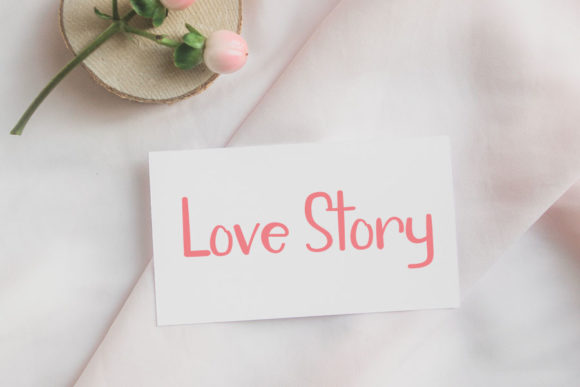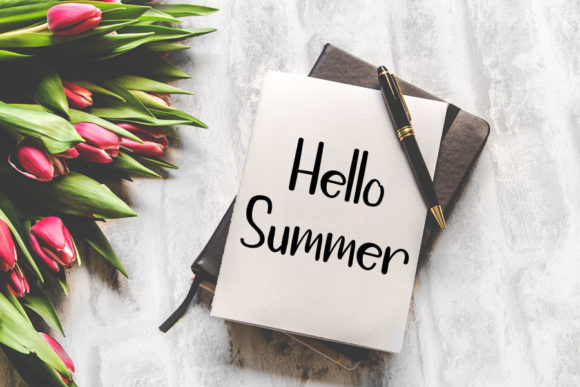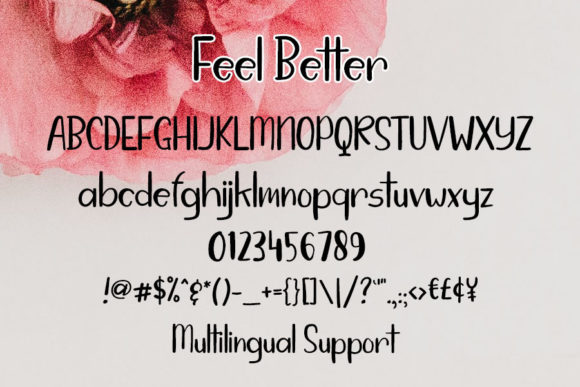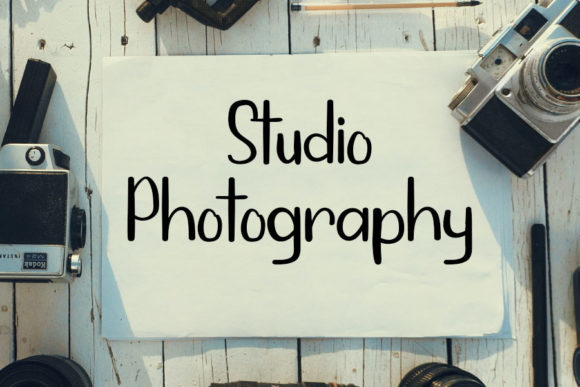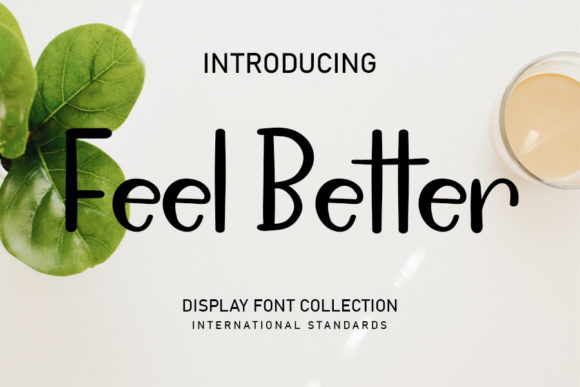
Introducing Feel Better Font: The Cute and Trendy Handwritten Font to Elevate Your Designs
Are you tired of using the same old fonts in your designs? Do you want to add a personal touch to your creations and make them stand out from the crowd? Look no further than Feel Better Font, a beautiful and trendy handwritten font that’s perfect for designers and crafters alike. In this article, we’ll dive into the world of Feel Better Font and explore its unique features, uses, and benefits.
What is Feel Better Font?
Feel Better Font is a cute and trendy handwritten font that’s designed to add a touch of personality to your designs. Its natural and unique style makes it incredibly fitting to a large pool of designs, from digital products to print materials. Whether you’re creating social media graphics, blog posts, or marketing materials, Feel Better Font is the perfect choice to make your designs shine.
Unique Features of Feel Better Font
So, what sets Feel Better Font apart from other fonts? Here are some of its unique features:
- Handwritten style: Feel Better Font has a beautiful, handwritten style that’s perfect for adding a personal touch to your designs.
- Natural and unique: The font’s natural and unique style makes it incredibly fitting to a wide range of designs.
- Trendy and modern: Feel Better Font is a trendy and modern font that’s perfect for designers who want to stay ahead of the curve.
- Highly versatile: The font is highly versatile and can be used in a variety of designs, from digital products to print materials.
Uses of Feel Better Font
So, what can you use Feel Better Font for? The possibilities are endless! Here are some ideas to get you started:
- Social media graphics: Use Feel Better Font to create eye-catching social media graphics that will make your followers stop scrolling.
- Blog posts: Add a personal touch to your blog posts with Feel Better Font and make them more engaging and readable.
- Marketing materials: Use Feel Better Font to create marketing materials that will help your brand stand out from the crowd.
- Digital products: Feel Better Font is perfect for digital products, such as ebooks, courses, and more.
- Print materials: The font can also be used in print materials, such as brochures, flyers, and more.
Benefits of Using Feel Better Font
So, why should you use Feel Better Font in your designs? Here are some benefits:
- Adds a personal touch: Feel Better Font adds a personal touch to your designs and makes them more relatable and engaging.
- Stand out from the crowd: The font’s unique style helps you stand out from the crowd and makes your designs more memorable.
- Highly versatile: Feel Better Font is highly versatile and can be used in a variety of designs and applications.
- Easy to read: The font is easy to read, even at small sizes, making it perfect for body text and captions.
Tips for Using Feel Better Font
Here are some tips for using Feel Better Font in your designs:
- Use it sparingly: Use Feel Better Font sparingly to add emphasis and create visual interest.
- Pair it with other fonts: Pair Feel Better Font with other fonts to create a unique and visually appealing combination.
- Have fun: Most importantly, have fun and be creative with Feel Better Font!
In conclusion, Feel Better Font is a beautiful and trendy handwritten font that’s perfect for designers and crafters alike. Its natural and unique style makes it incredibly fitting to a large pool of designs, and its highly versatile nature makes it suitable for a wide range of applications. With its ease of use and flexibility, Feel Better Font is a great addition to any designer’s toolkit.